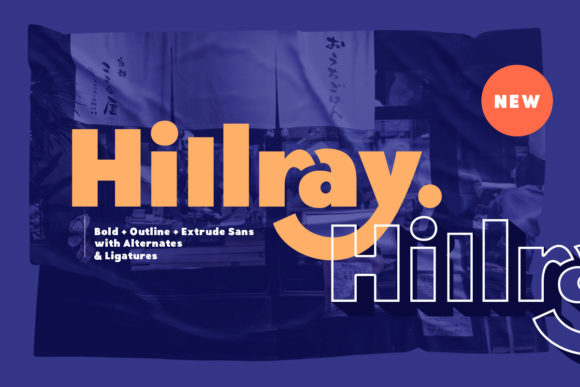
Introduce elegance and boldness to your designs with Hillray, the sans serif font family crafted by saridezra. Beyond its regular style, Hillray includes ligatures, alternates, extrude, and outline styles, providing versatility for any project.
Unleash your creativity with Hillray, the ultimate font for posters, branding, merchandise, and more. Make a statement with a font that commands attention, capturing the essence of wanted posters with its striking characters.
Hillray's intricate details and bold presence create an unforgettable impact, leaving a lasting impression on your audience. This font demands attention, captivating viewers with its distinct style.
With Hillray, you'll elevate your designs to new heights. Ignite your imagination and let the words dance off the page, captivating your audience and leaving them spellbound.